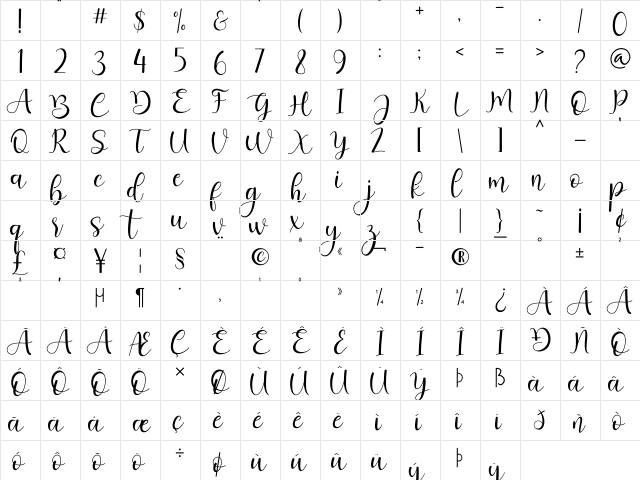
sheyla Regular
| Designer | (MJB Letters). 2019. (Muhammad Mujibulloh) |
Design Context for sheyla Typeface
sheyla is a composed and adaptable typeface that performs quietly and consistently across a wide range of design contexts.